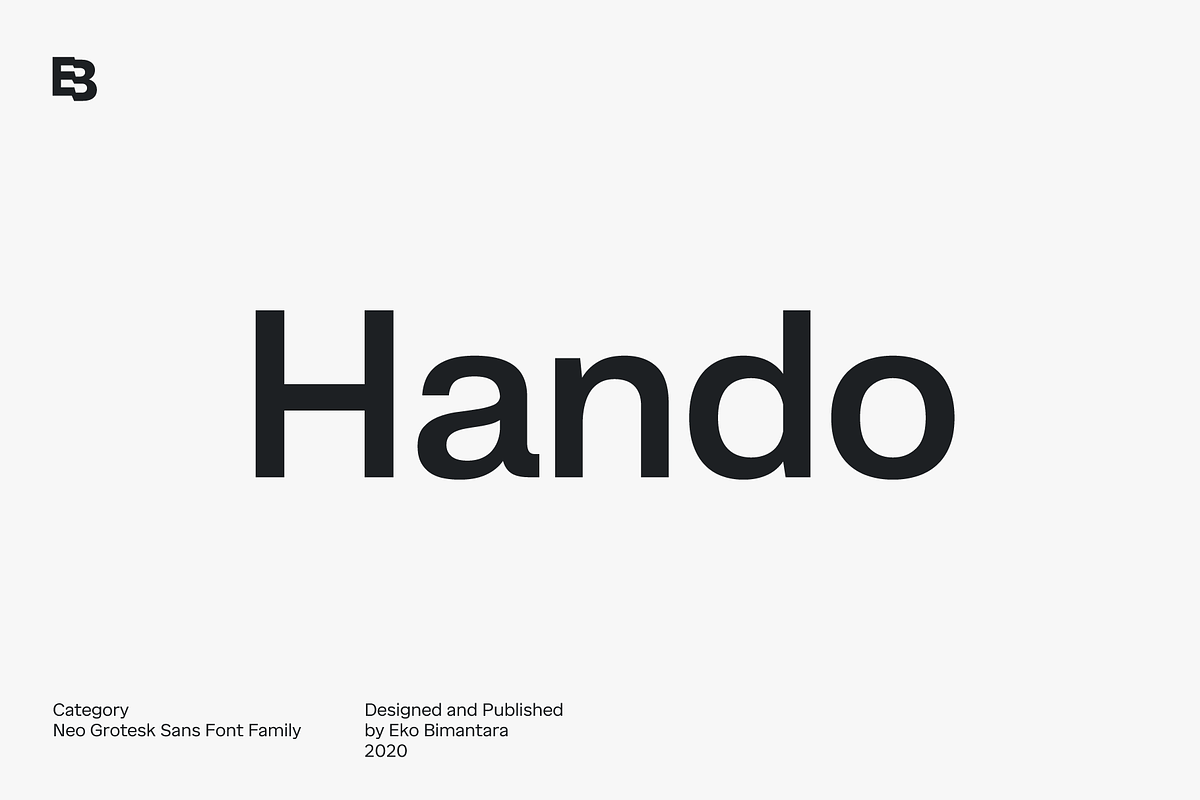
Hando is a modern sans-serif font family designed by Eko Bimantara, comprising 20 distinct styles ranging from Hairline to Black, each accompanied by matching oblique variants. Its low x-height and diverse weight options make it suitable for various applications, including logo design, print media, merchandise, and website graphics.
• Comprehensive Style Range: The family includes 10 weights from Hairline to Black, each with a corresponding oblique style, providing flexibility for diverse design needs.
• Extensive Glyph Support: With over 440 glyphs, Hando supports a broad range of Latin-based languages, ensuring versatility in international projects.
• OpenType Features: The font offers stylistic alternates and various figure styles, allowing for customization and creative flexibility in your designs.